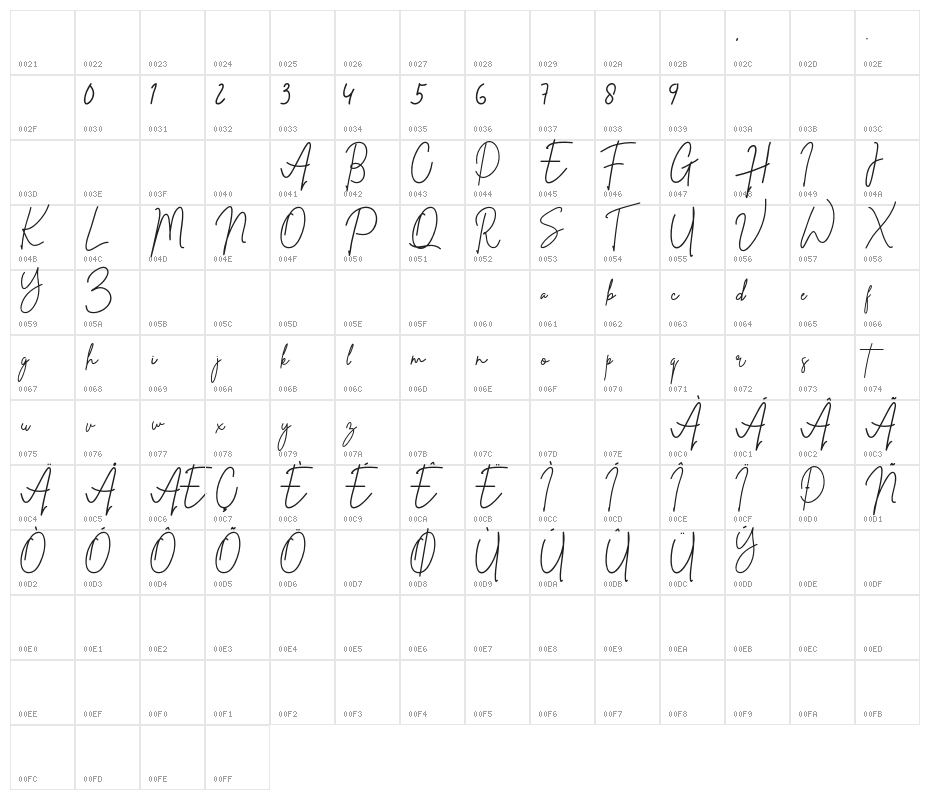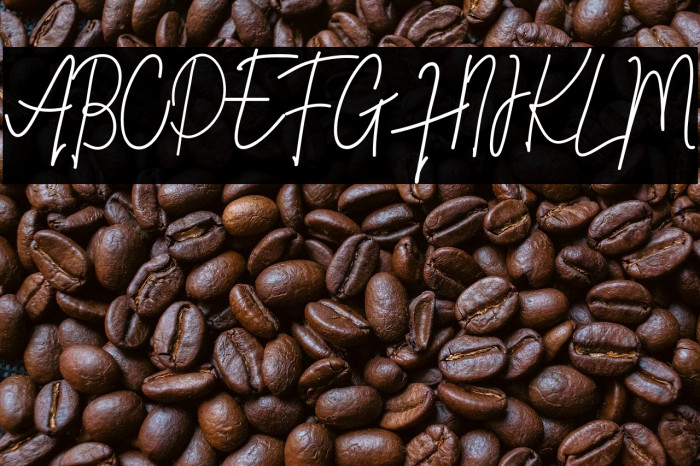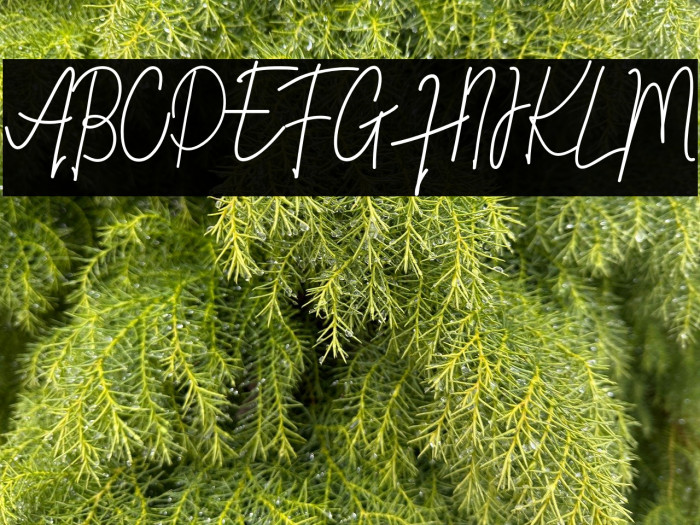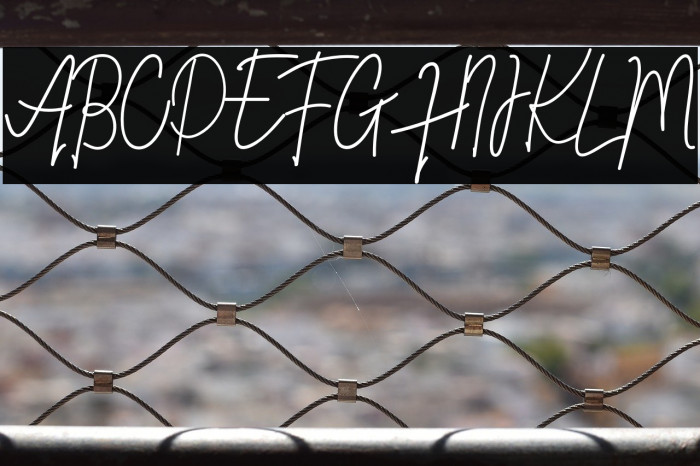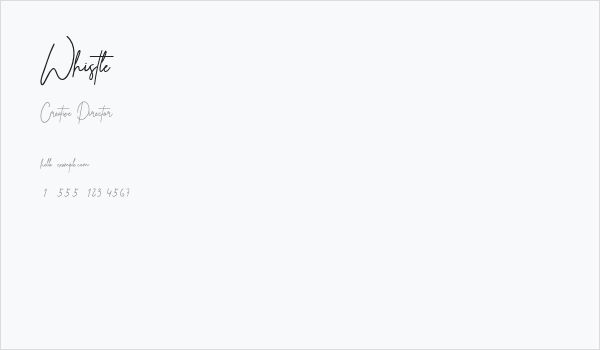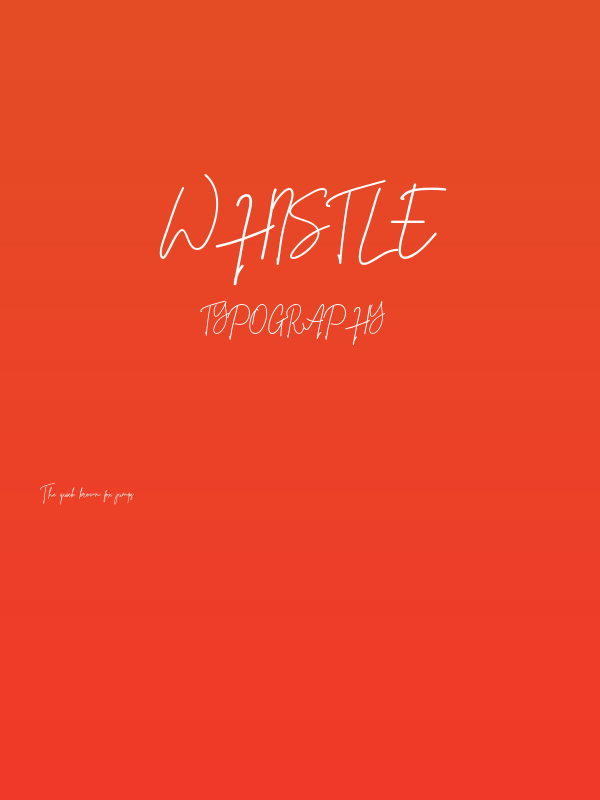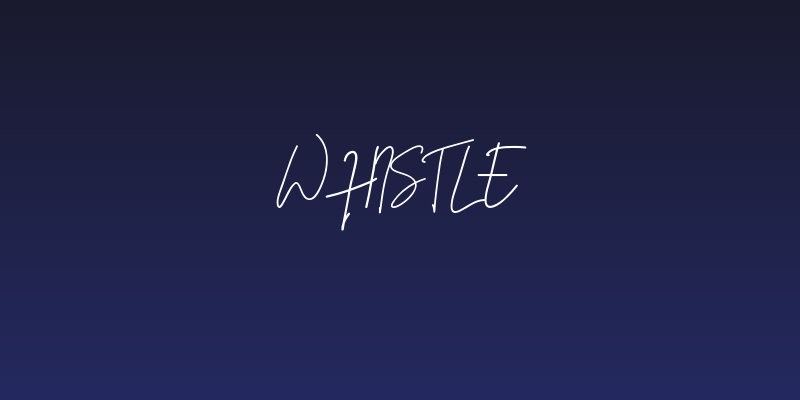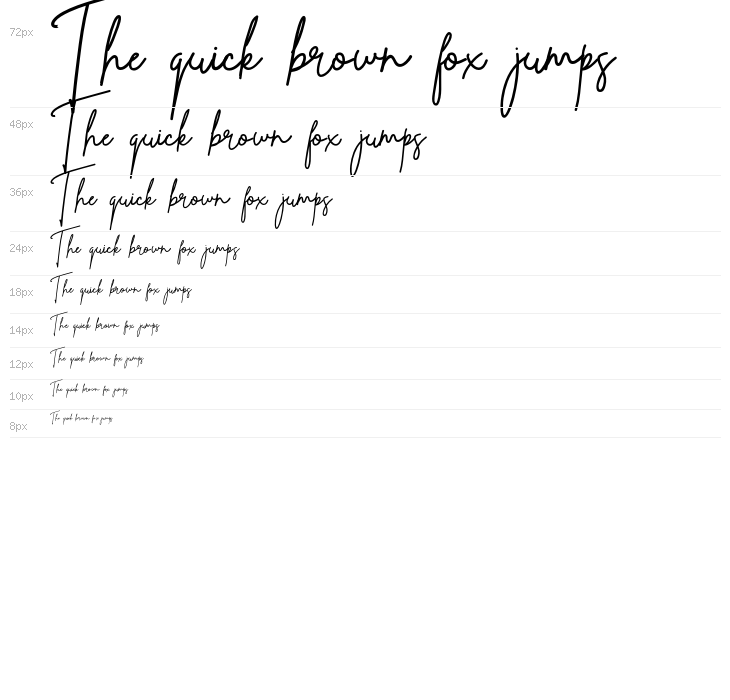
Whistle Font
Whistle Description
This font features a handwritten, cursive style with a playful and elegant appearance. The uppercase letters are tall and slender, with a slight slant that adds a dynamic flow to the text. The lowercase letters maintain a consistent style, with smooth curves and loops that enhance the handwritten feel. The numerals are clear and legible, matching the overall aesthetic of the font. Special characters are included, maintaining the same fluidity and style. This font is ideal for projects that require a personal touch, such as invitations, greeting cards, or branding materials.
| Proposed Projects | Ideal for invitations, greeting cards, personal branding, and creative projects. |